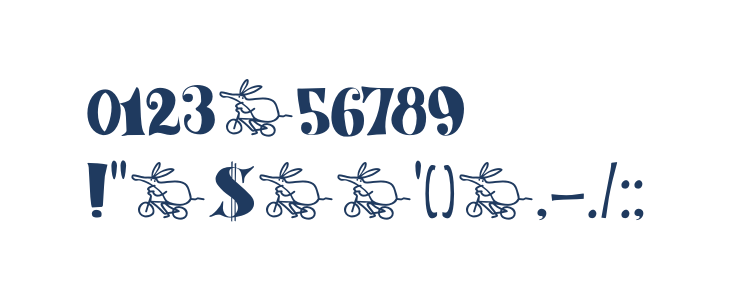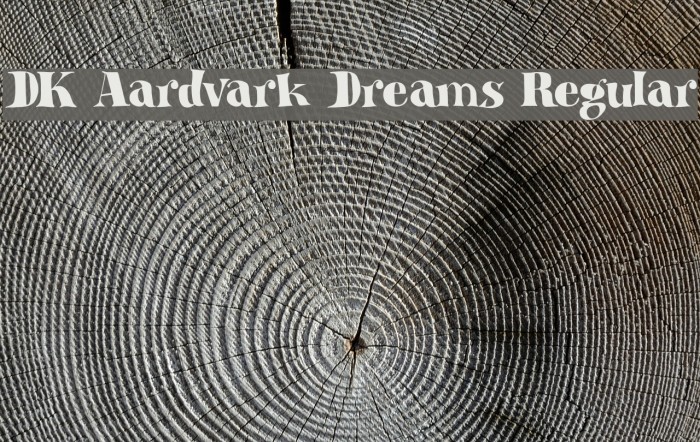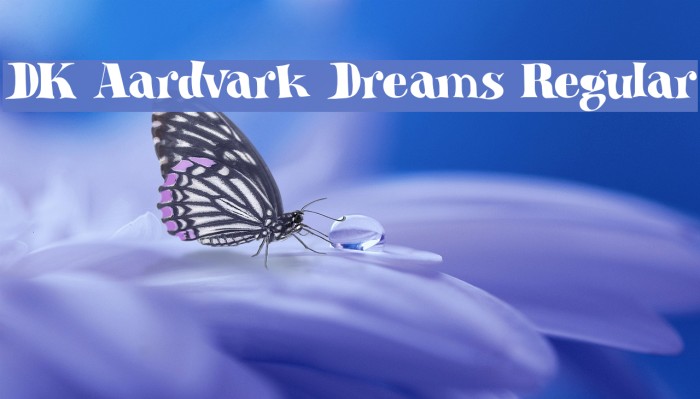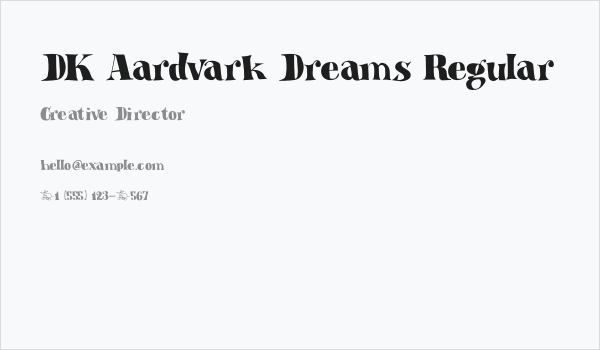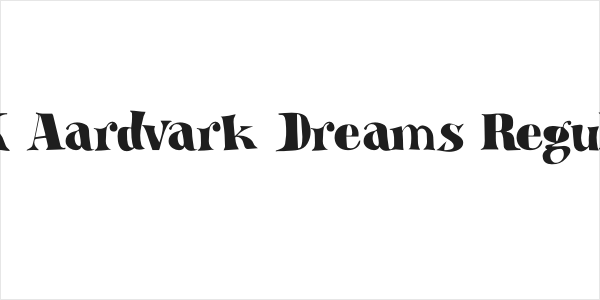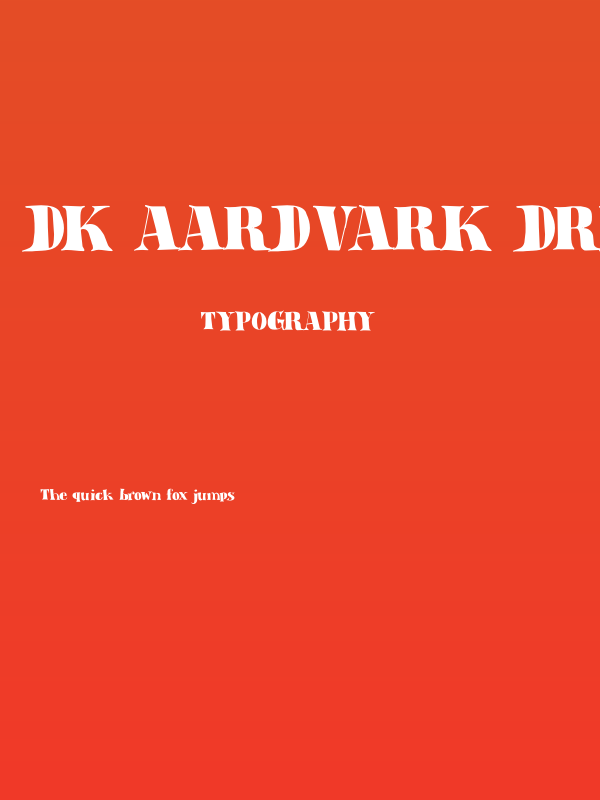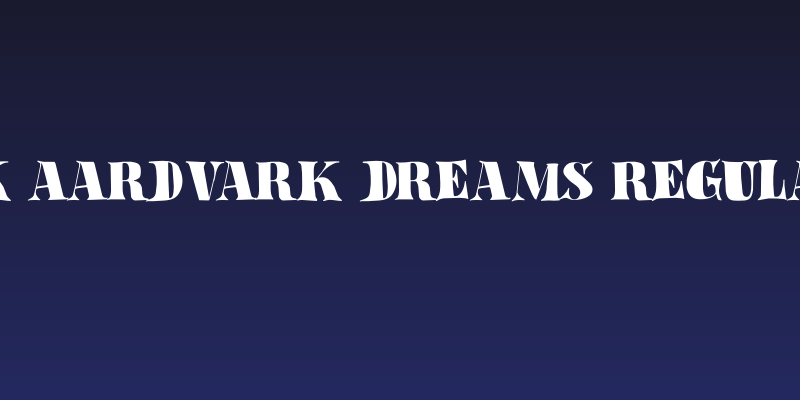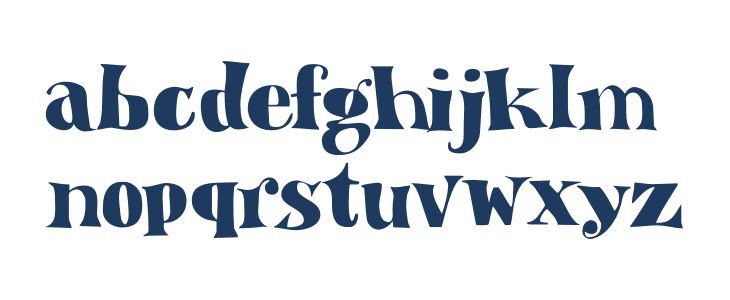
DK Aardvark Dreams Regular Font
DK Aardvark Dreams Regular Description
This font features a whimsical and playful design with a unique blend of bold and curvy elements. The uppercase letters are characterized by exaggerated serifs and varying stroke widths, giving them a dynamic and lively appearance. The lowercase letters maintain a similar playful style, with some characters featuring distinctive loops and curves. Numbers and special characters are designed with the same creative flair, adding to the font's overall charm. The inclusion of illustrated elements, such as a character riding a bicycle, further enhances its quirky and imaginative nature.
| Proposed Projects | Ideal for children's books, playful branding, creative posters, and whimsical invitations. |